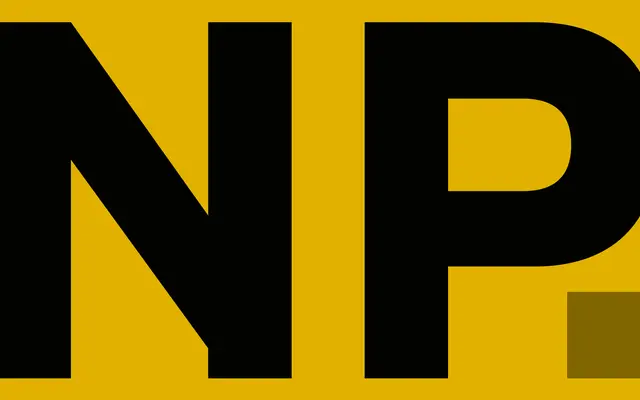
No Parking
A single-weight display face drawn from a hand-painted 'No Parking' sign spotted on a New York City sidewalk, winning the Tokyo TDC Prize in 2025.
Derived from a chance encounter with a local resident painting their own street sign, the typeface captures the idiosyncratic character of amateur hand-lettering, particularly an unconventional interpretation of the letter G. Only one weight exists, Bold, reflecting the source material's singular, assertive stroke. The font won the Tokyo Type Directors Club TDC Prize in 2025.
A single-weight display typeface derived from hand-painted street lettering, placing it firmly in the vernacular display category with no serif or sans-serif classification applicable.